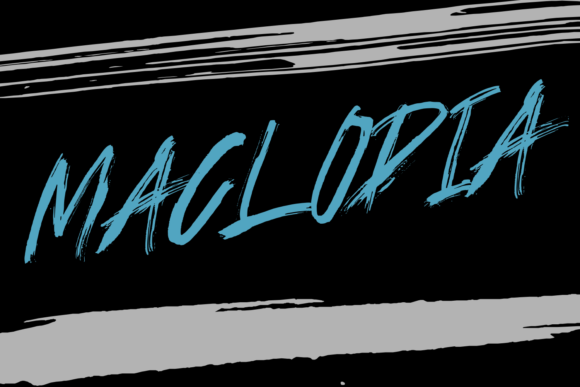
Maclodia Font
Font Name : Maclodia Font
Author : mozyenstudio
Unleash the allure of your brand with Maclodia Font, the script font that will transform your designs into masterpieces. Its graceful curves and intricate details will captivate the eyes, evoking emotions and leaving an unforgettable impression.
With Maclodia Font, you'll possess a versatile tool that adapts seamlessly to your creative vision. Create logos that command attention, book titles that ignite curiosity, and t-shirts that exude style. Its PUA encoding grants you easy access to a world of extraordinary glyphs and ligatures, empowering you to add a touch of magic to your creations.
From the sleek sophistication of product branding to the bold impact of advertising campaigns, Maclodia Font enhances your designs with a touch of elegance. Its captivating charm will attract customers like moths to a flame, making your brand unforgettable.
Don't settle for ordinary fonts. Embrace the transformative power of Maclodia Font and unlock a universe of design possibilities. Let your imagination soar and witness your creations blossom into extraordinary works of art.